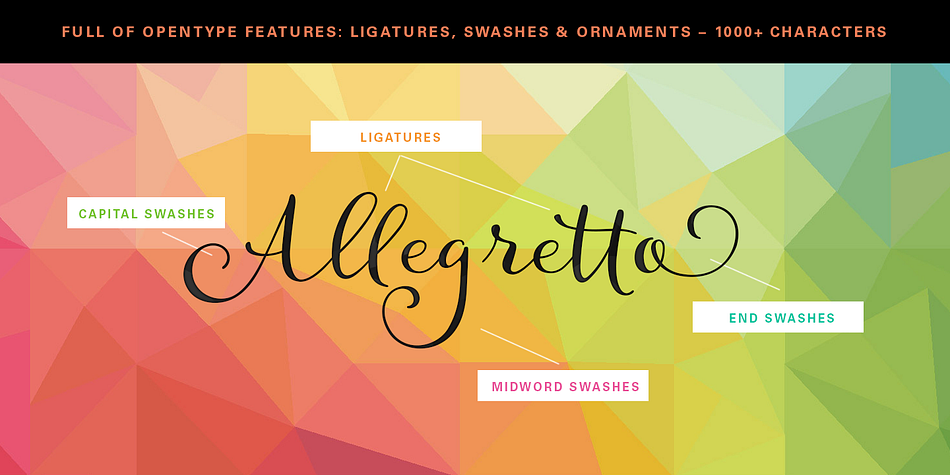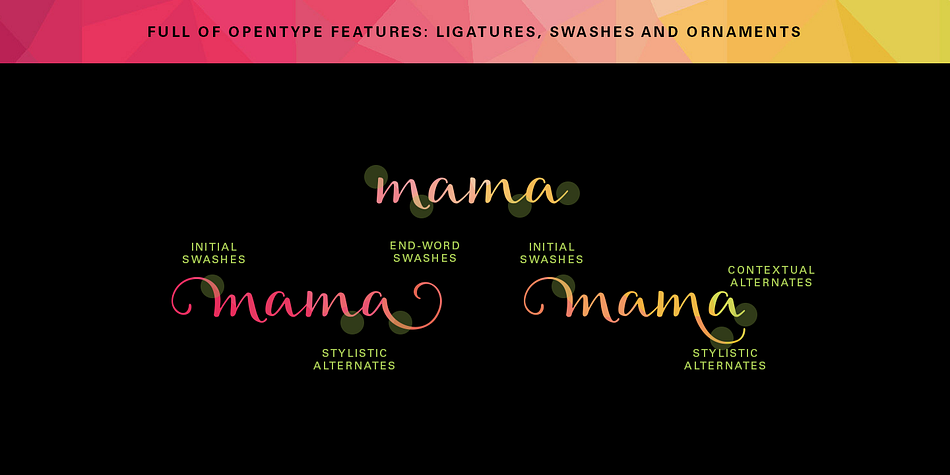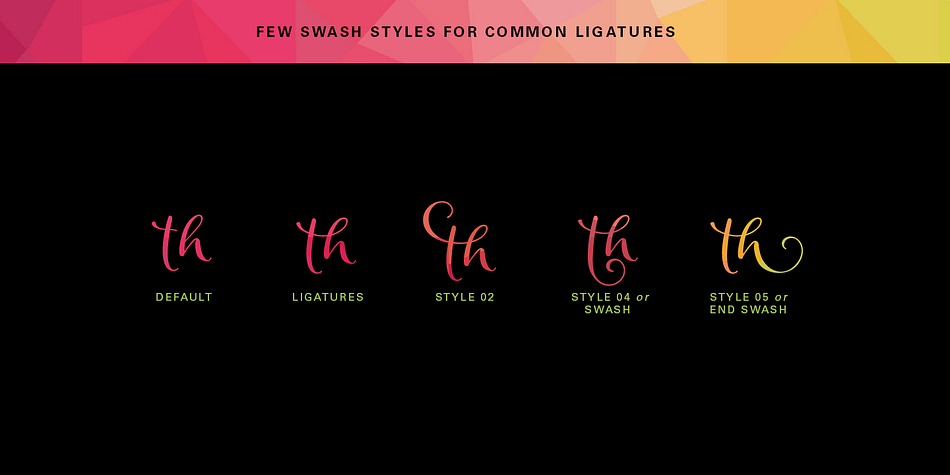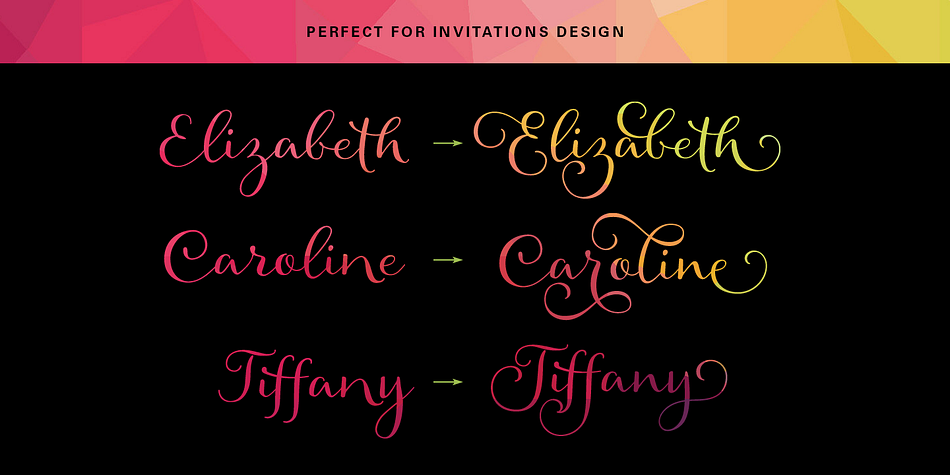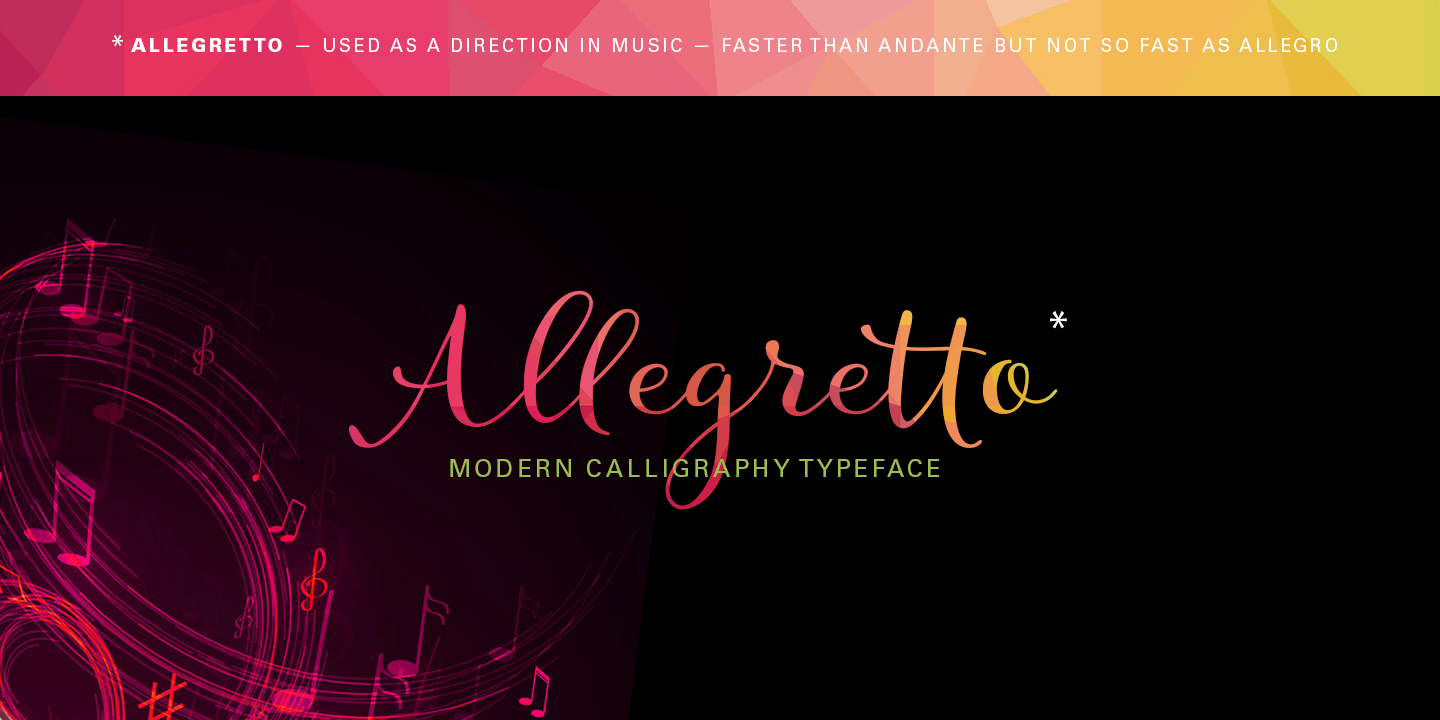
Allegretto Script is a script and modern calligraphy font published by My Creative Land.
Allegretto Script is a modern calligraphy typeface with a playful yet elegant style, inspired by Mozart’s “Rondo Alla Turca” and his other compositions played with allegretto tempo.
The font contains more than 1000 glyphs. Each letter in the typeface has few different swashes that can be accessed via glyphs panel of your opentype-aware application such as Adobe Illustrator, Adobe InDesign, MS Word. To have access to all glyphs in Adobe Photoshop you may need to install an additional software such as PopChar®.